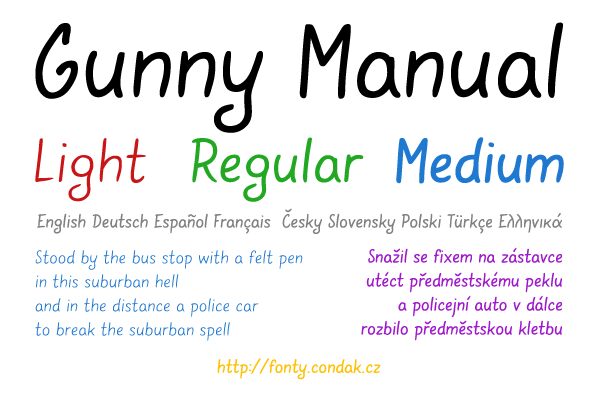
Font sketched very quickly with a thick felt pen but I invested in it much more time than such a simple font deserved and I remade it completely. =)
The version based on the original sketch is now called Medium. The other two lighter versions were created later.
Gunny Manual Medium